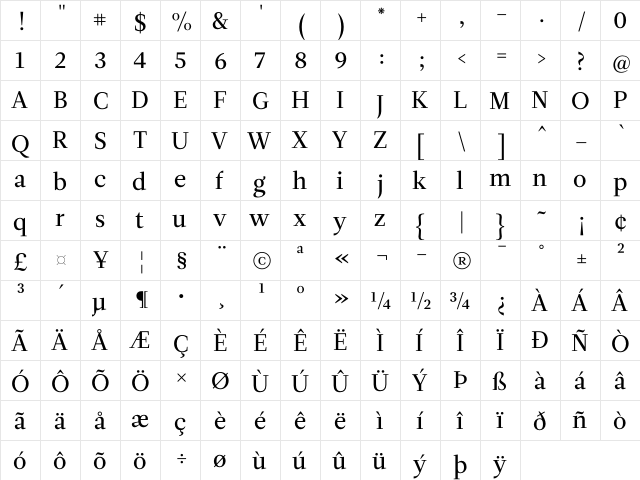
Leitura Roman 2
Roman 2 · Dino dos Santos _DSType Dino dos Santos ·
DesignerDino dos Santos
Design Context for Leitura Typeface
Leitura is a composed and adaptable typeface that performs quietly and consistently across a wide range of design contexts.